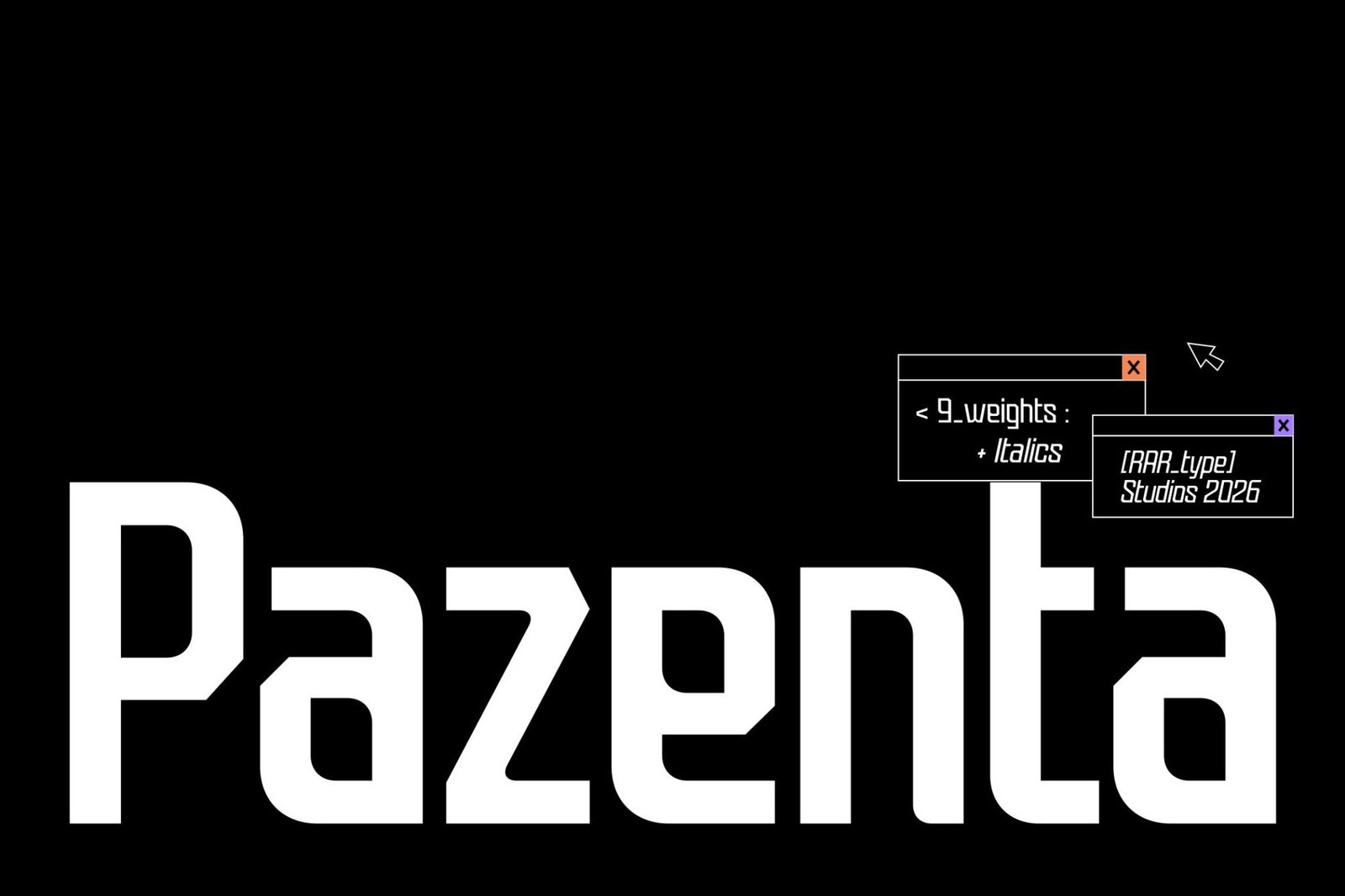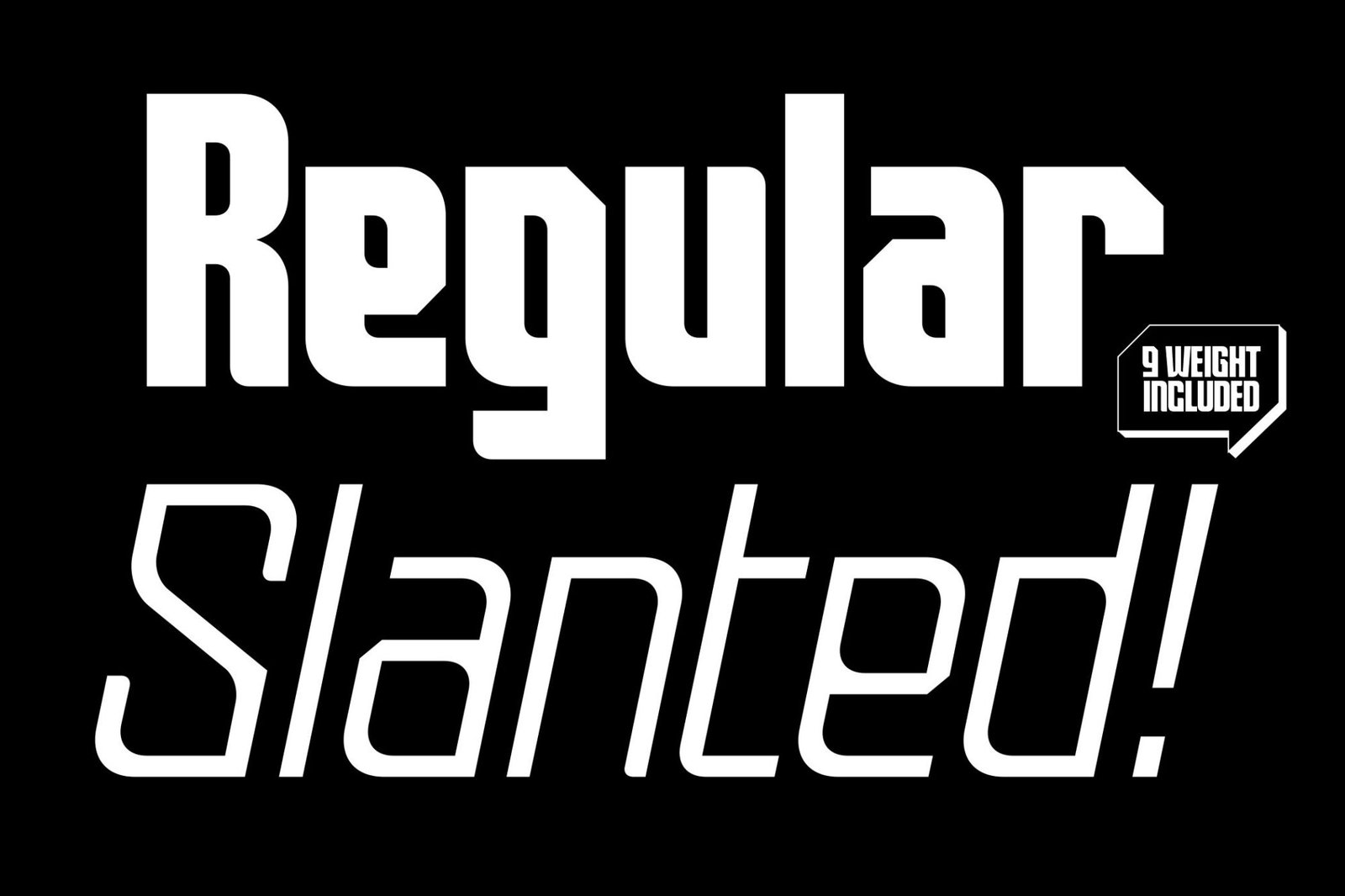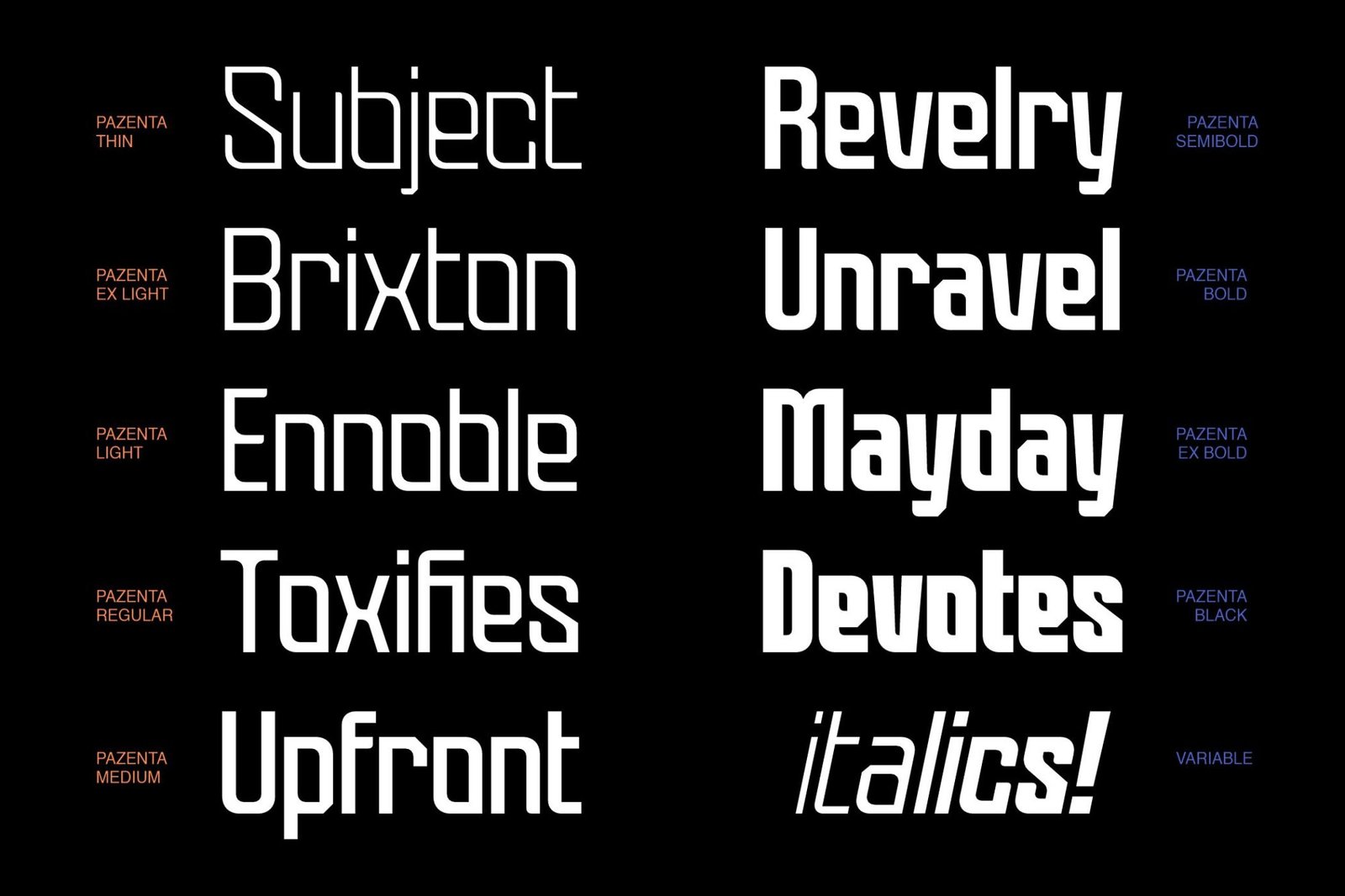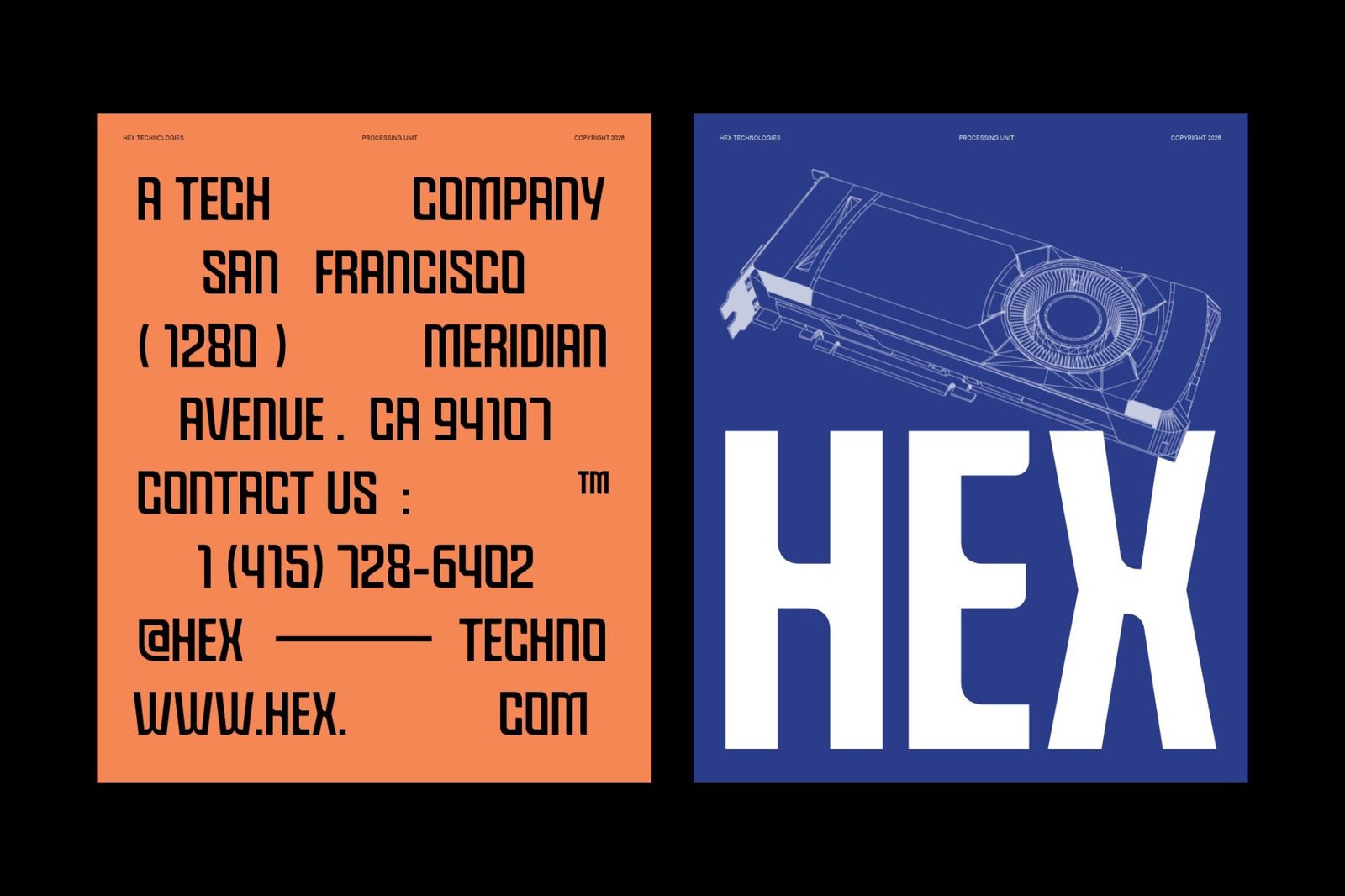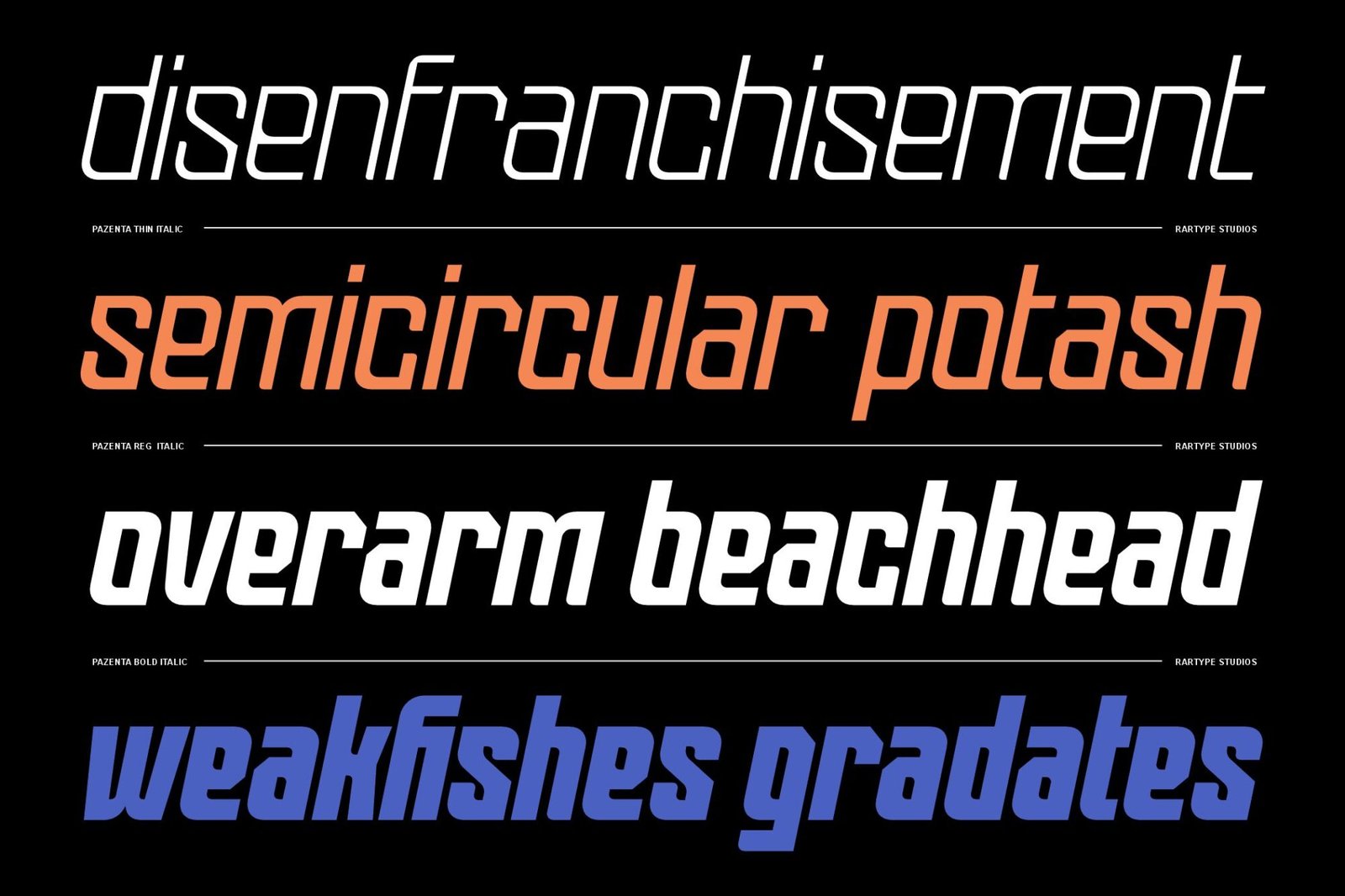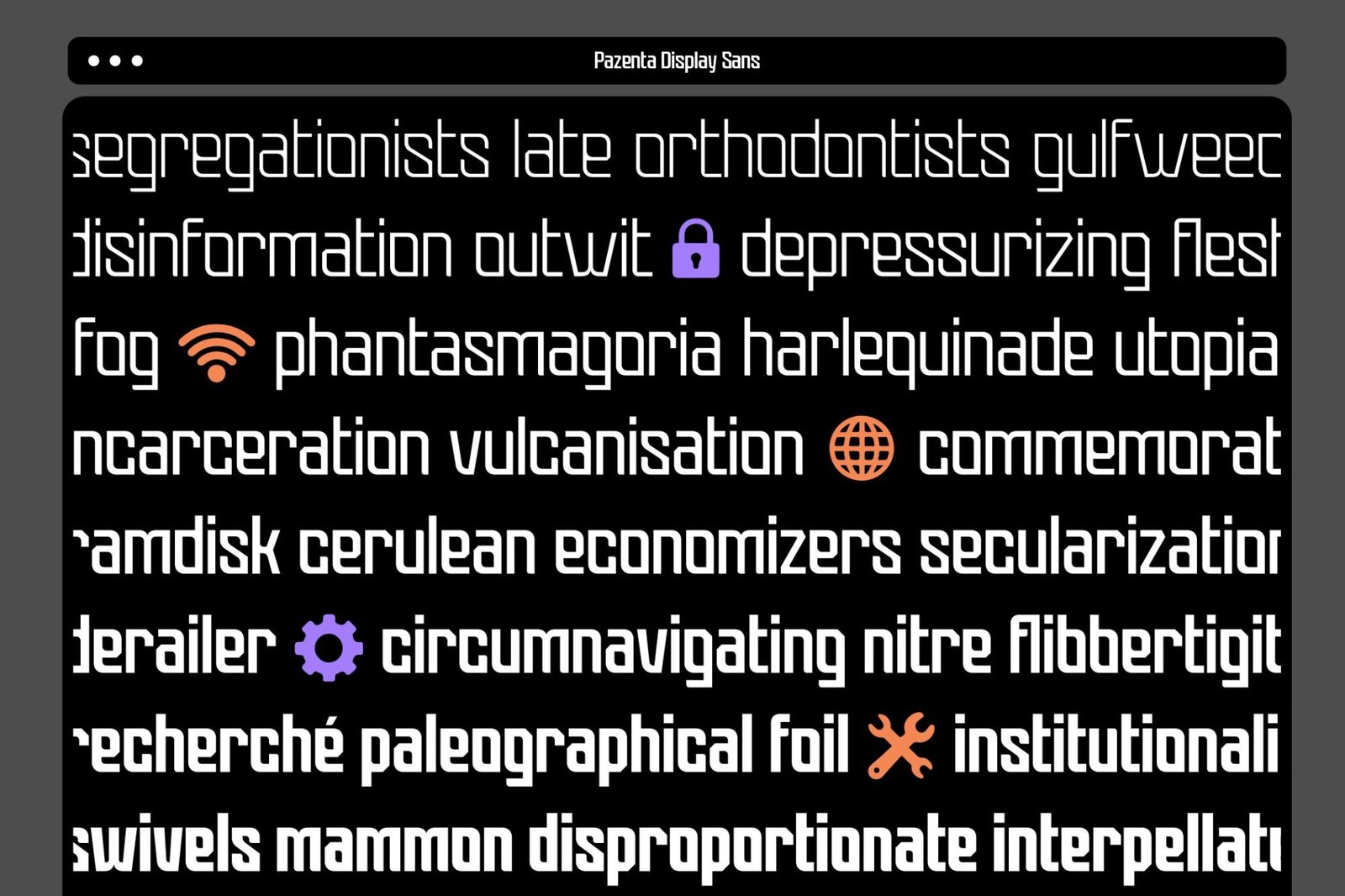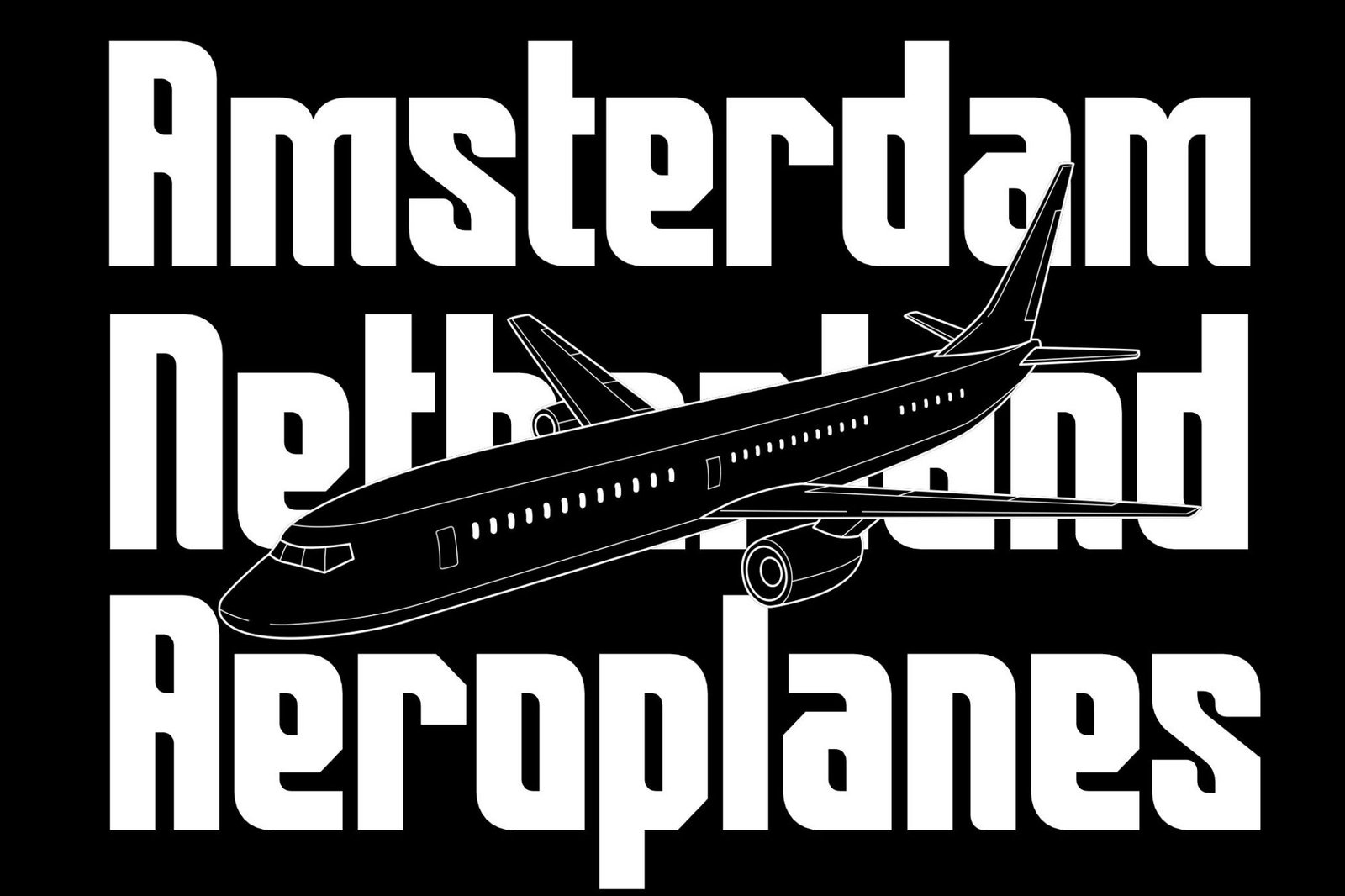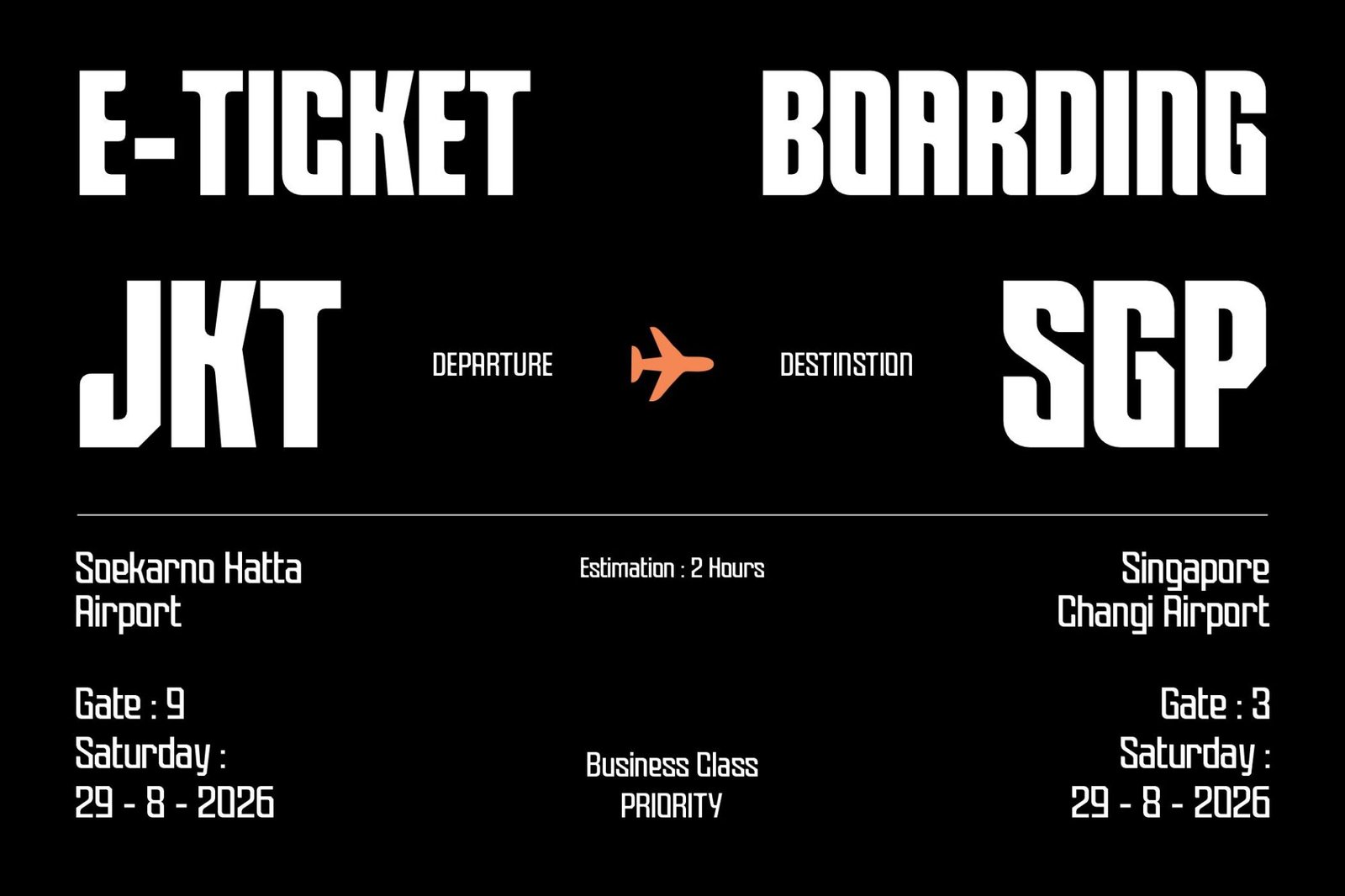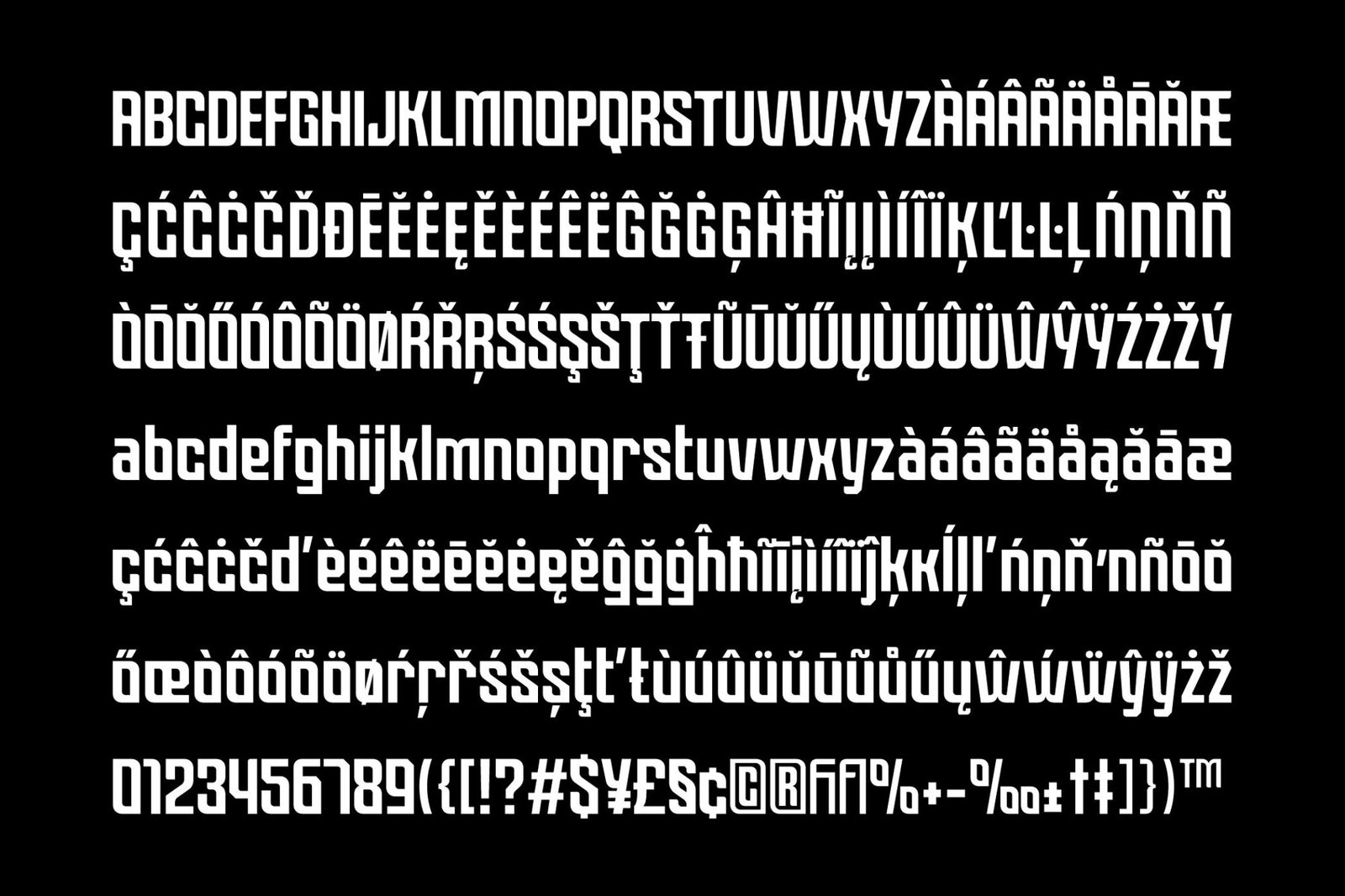
Pazenta is a bold geometric display typeface with a distinctive futuristic and technical character. Its condensed proportions, sharp angles, and unconventional letterforms create a strong visual identity while maintaining a clean and modern appearance.
With 9 styles from Thin to Black, including matching italics, Pazenta is perfect for branding, logos, posters, headlines, technology, fashion, gaming, and editorial design.